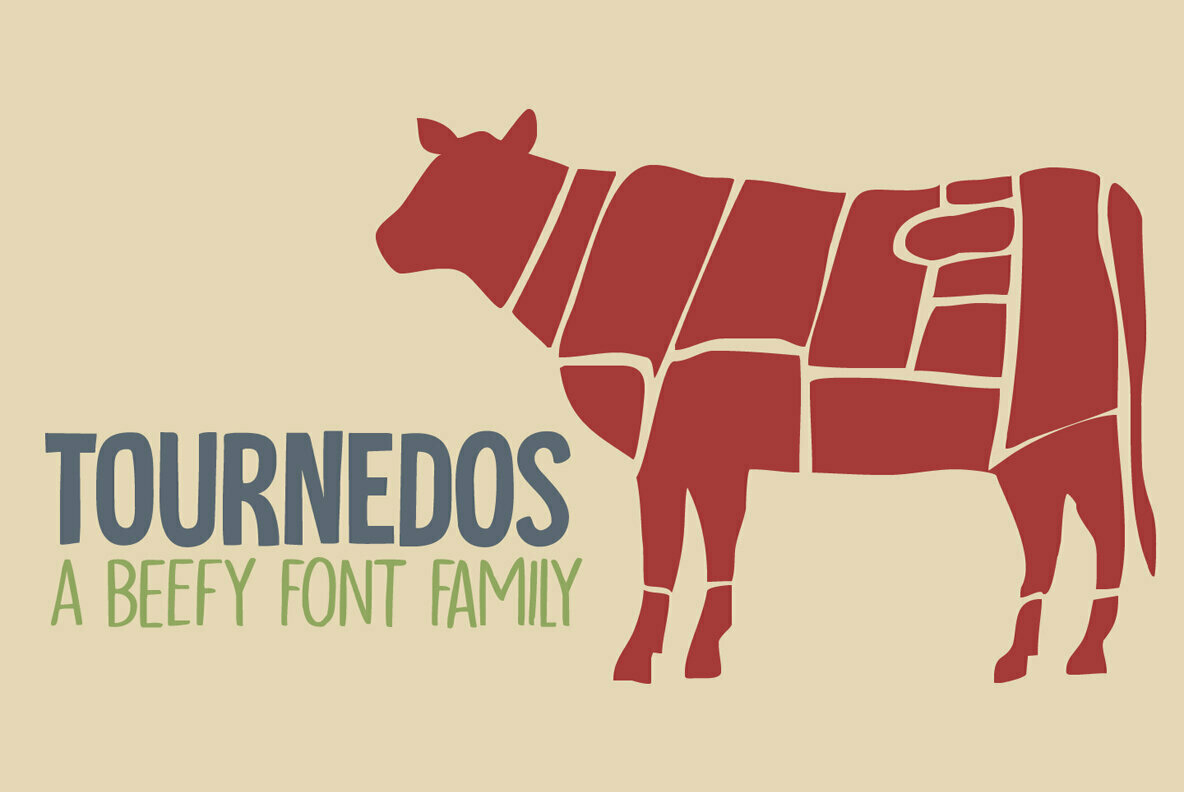
Tournedos Font
Tournedos Font is perfect for upscale steakhouse branding, fine dining restaurant menus, gourmet butcher shop signage, luxury culinary school materials, premium beef marketing campaigns, sophisticated gastropub communications, elegant food packaging, and refined culinary event designs.
What makes Tournedos Font exciting is its exquisitely sophisticated character that captures the culinary artistry and refined elegance of fine dining through masterfully crafted letterforms that seem seasoned with the expertise of world-class chefs and the precision of classical French cuisine. The font features elegant proportions with culinary-inspired details that evoke the meticulous preparation and sophisticated presentation found in the world's finest restaurants. Its gourmet aesthetic and culinary authenticity make it perfect for brands that want to communicate culinary excellence, sophisticated taste, and the kind of gastronomic artistry that transforms dining into an unforgettable experience while creating memorable encounters that celebrate the highest traditions of fine cuisine.
Tournedos Font family includes various refined weights such as Light, Regular, Medium, and Bold variations, often featuring culinary-inspired alternates and gourmet decorative elements. The family may include fine dining symbols, culinary ornaments, and sophisticated ligatures that enhance the font's elegant aesthetic, providing designers with comprehensive options for creating exquisite typographic compositions that honor the art of fine dining and culinary sophistication.
This exquisitely refined typeface has gained recognition among fine dining establishments and gourmet culinary brands seeking authentic sophisticated typography solutions that reflect culinary artistry and gastronomic excellence. Tournedos Font Free Download provides an excellent opportunity to savor this culinary font before investment. The font's character set includes culinary symbols and gourmet-inspired glyphs that work perfectly for fine dining and luxury food industry applications. Whether you're designing for Michelin-starred restaurants, gourmet food producers, or sophisticated culinary events, Tournedos Font delivers the refined elegance your project requires. Its versatile nature makes it suitable for various culinary applications including wine bars, culinary schools, gourmet catering services, and sophisticated food lifestyle brands, ensuring your typography choices communicate culinary sophistication and gastronomic artistry while creating memorable brand experiences that celebrate the transformative power of exceptional cuisine and the timeless appeal of culinary mastery through its distinctively elegant and authentically gourmet visual character.